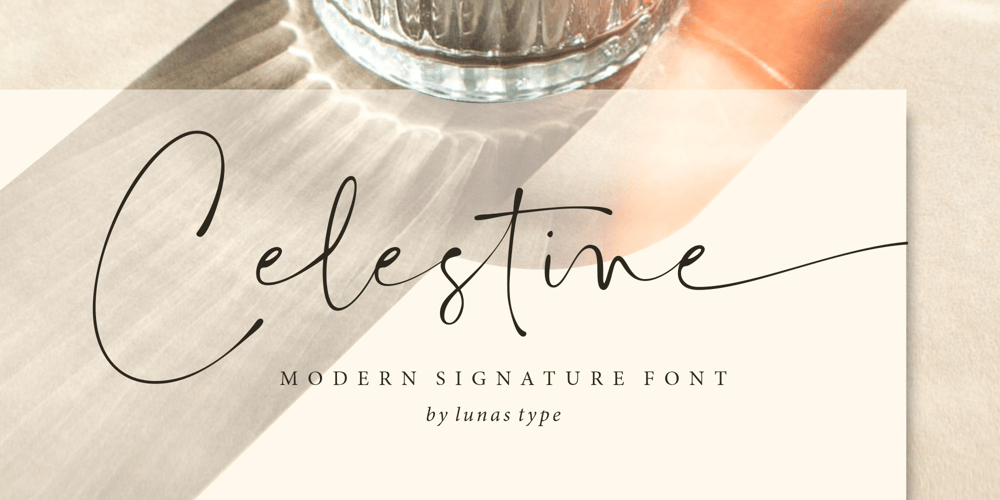
Celestine Font Family was designed by Annas Alam Yahya and published by Lunas Type. Celestine contains 1 styles and family package options. Introducing, Celestine!Celestine is a modern signature style handwritten font. Celestine comes with ending swashes to add charming feel. Just type “-” at the end of the letters to access swashes. Or you can access it via alternates option.Celestine is perfect for many design needs such as merch, T-shirts, logo, titles, wedding, book covers, social media posts, websites, events, and many more.What’s you get :- Ending Swashes- Numeral & Punctuation.- Ligature.- Multilingual Support.Enjoy Designing!Thanks!Lunas Type